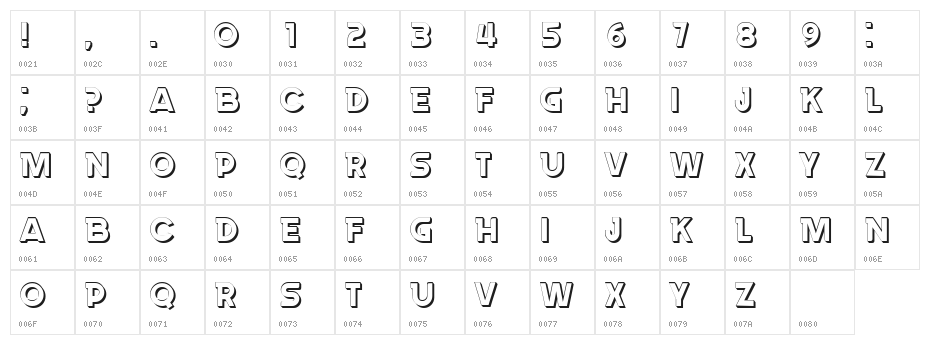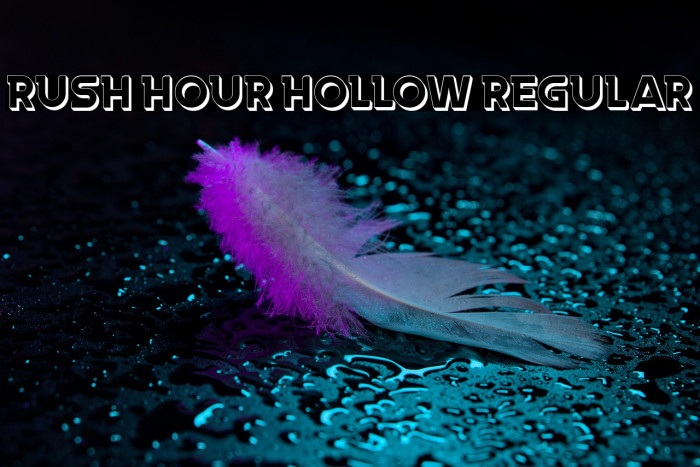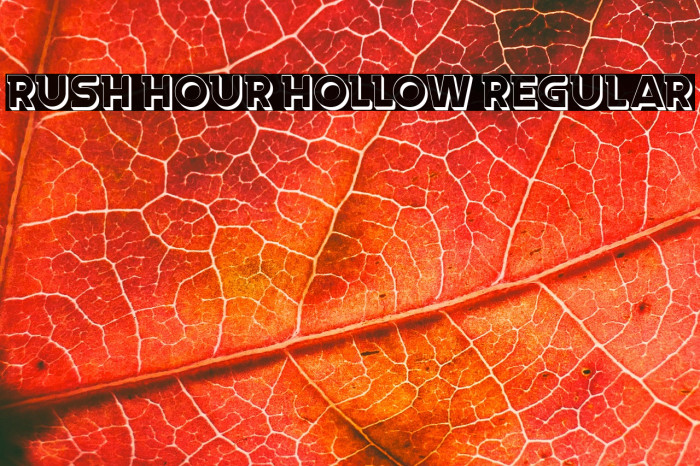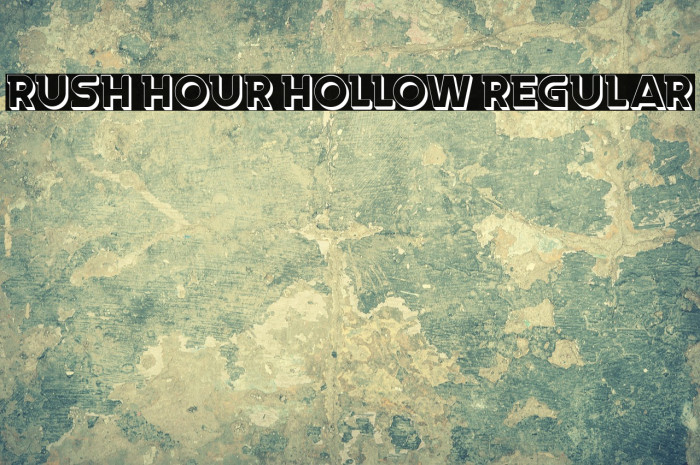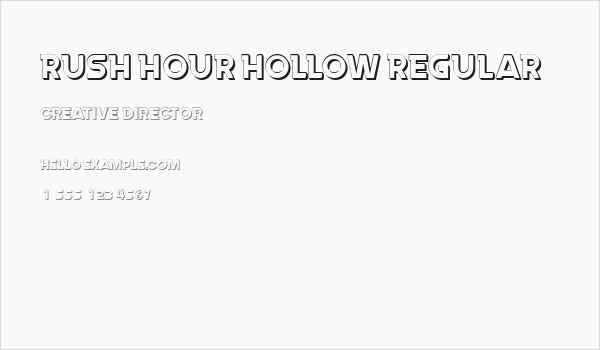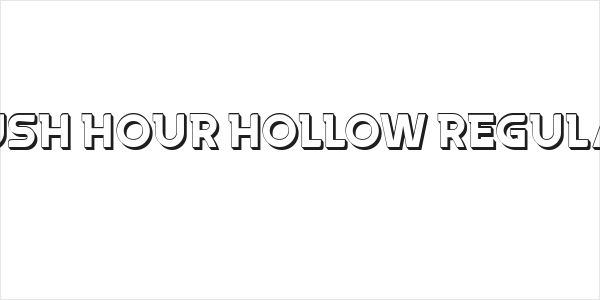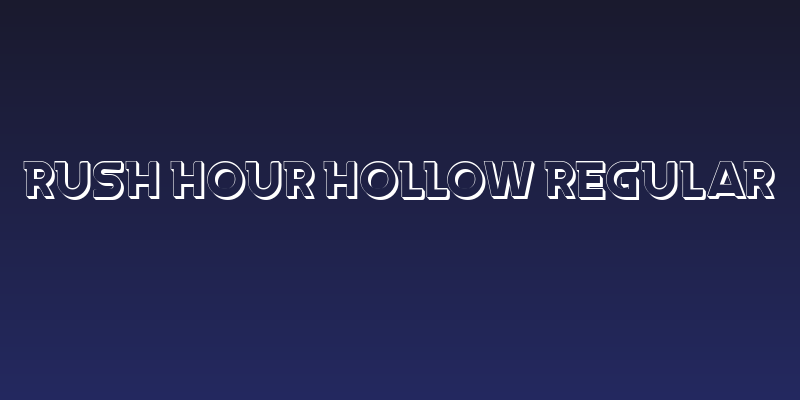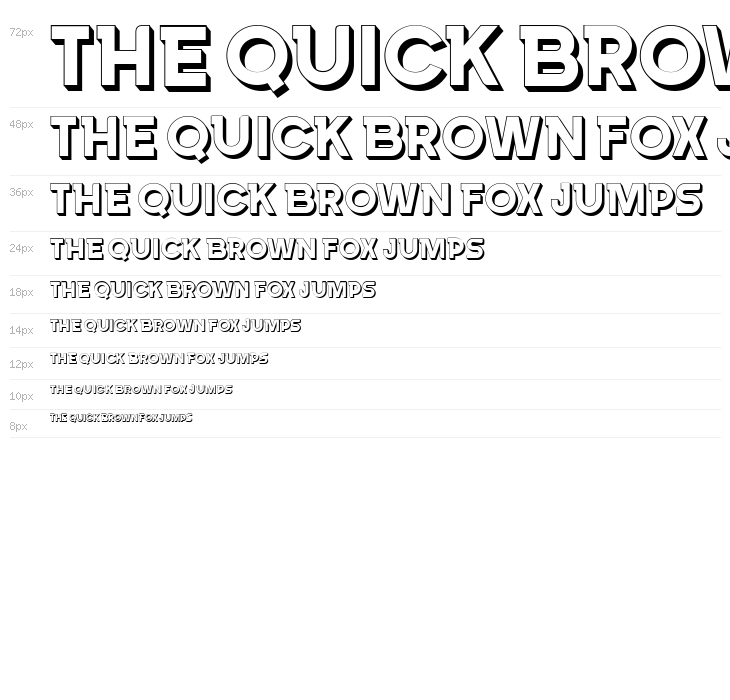
Rush Hour Hollow Regular Font
Rush Hour Hollow Regular Description
This font features a bold, hollow design with a strong, geometric structure. The letters are uppercase and have a three-dimensional effect, giving them a striking appearance. The hollow centers create a sense of depth and dimension, making the characters stand out. The style is clean and modern, with consistent line thickness and sharp edges. The numbers and special characters follow the same design principles, ensuring uniformity across all glyphs. This font is ideal for creating eye-catching headlines and titles.
| Proposed Projects | Ideal for posters, headlines, logos, and any design requiring a bold, attention-grabbing typeface. |